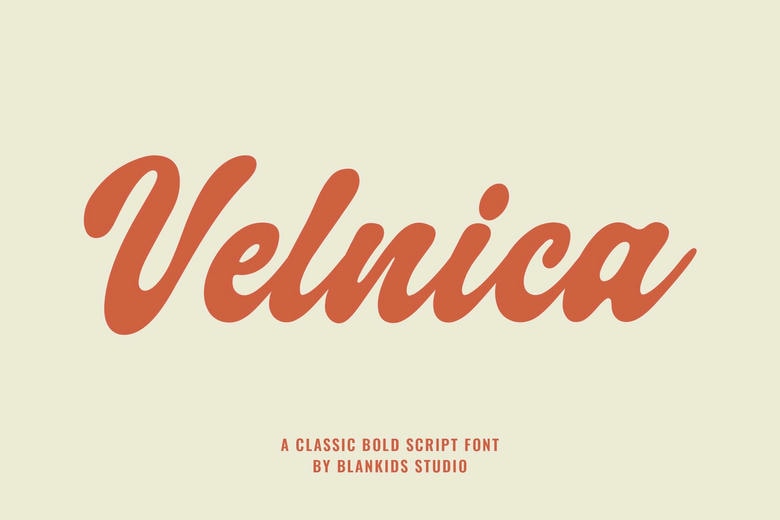
Velnica Font
Velnica is a classic bold bold script typeface which fuses well-formed curves with a self-assured vintage style. Velnica is created to intensify any project with the right balance of boldness, elegance as well as the vintage appearance by creators who prefer a handcrafted feel and warmth.
Velnica is best at branding, logo creation, headline font, product wrappings, social media content, merchandise, and ad images. Each letter has been designed to appear natural and expressive and your typography will shine through without trying hard.
There are also smooth connections and clean forms in Velnica that guarantee a professional appearance, both in large headlines and composition of details design.
Velnica Script Font